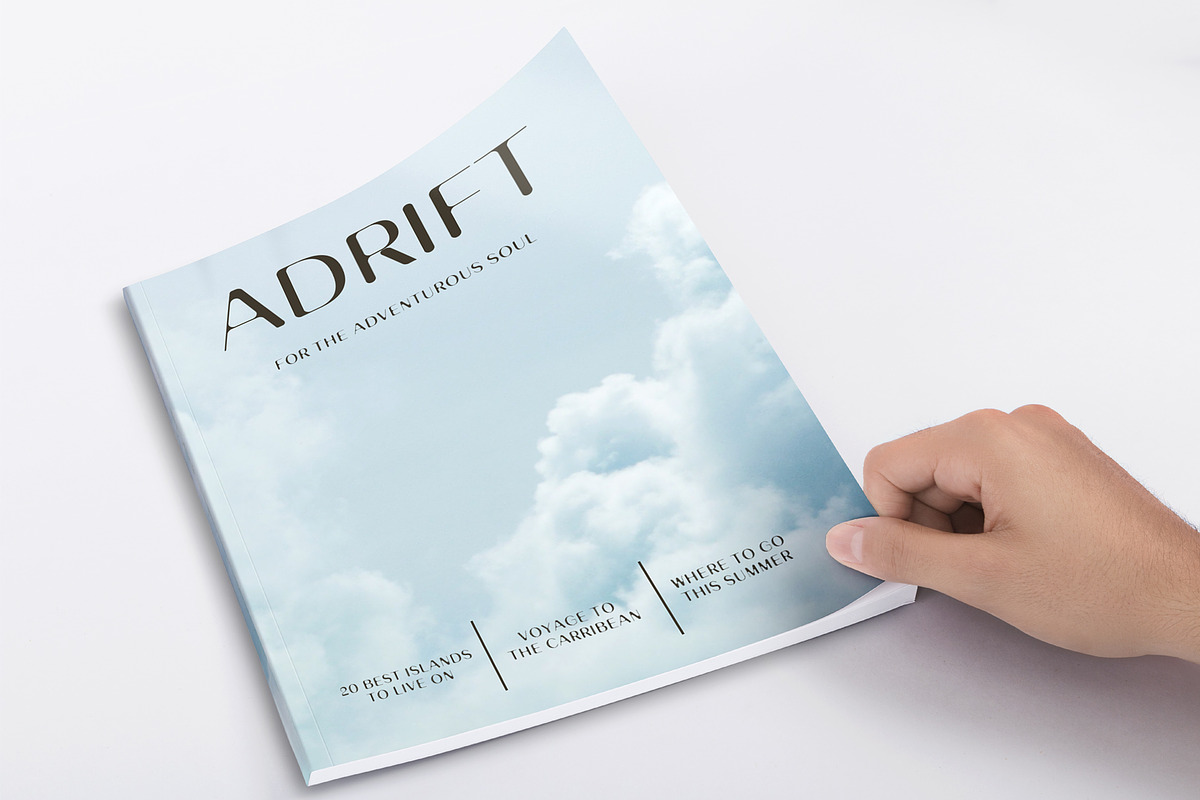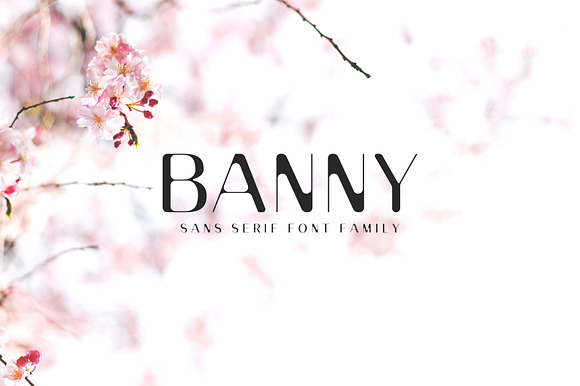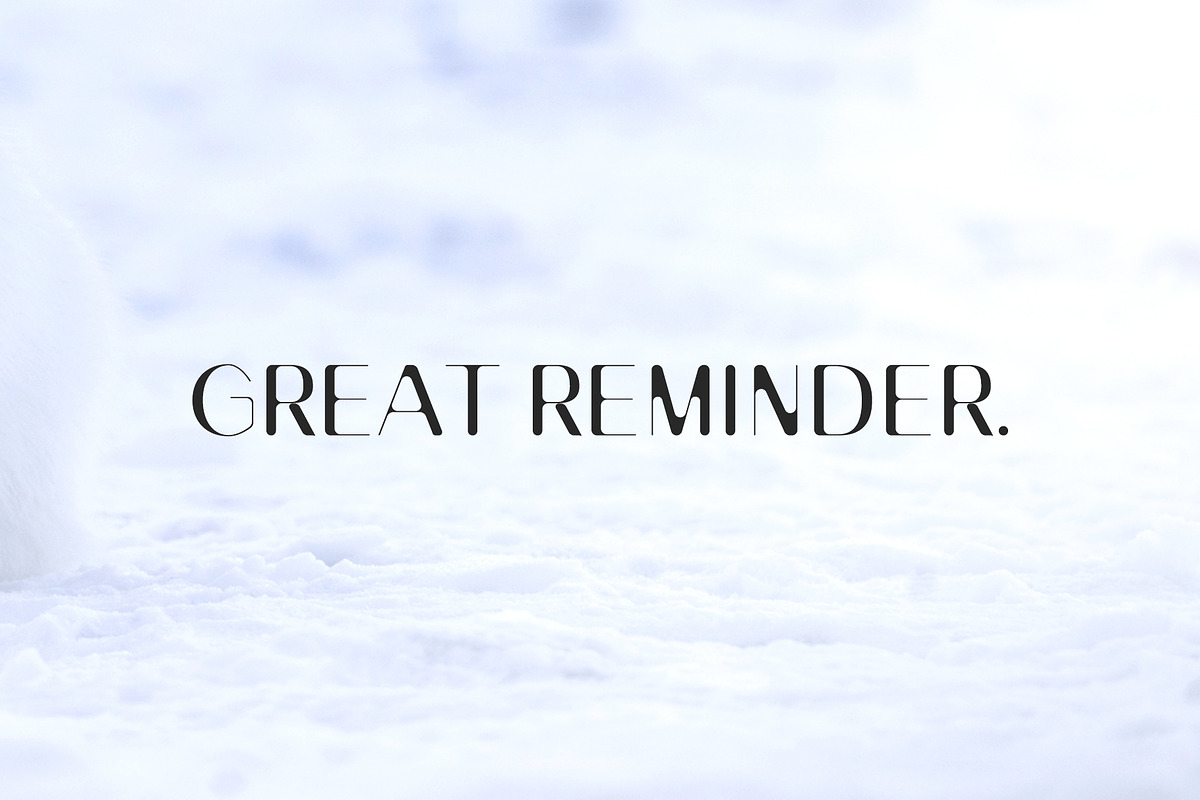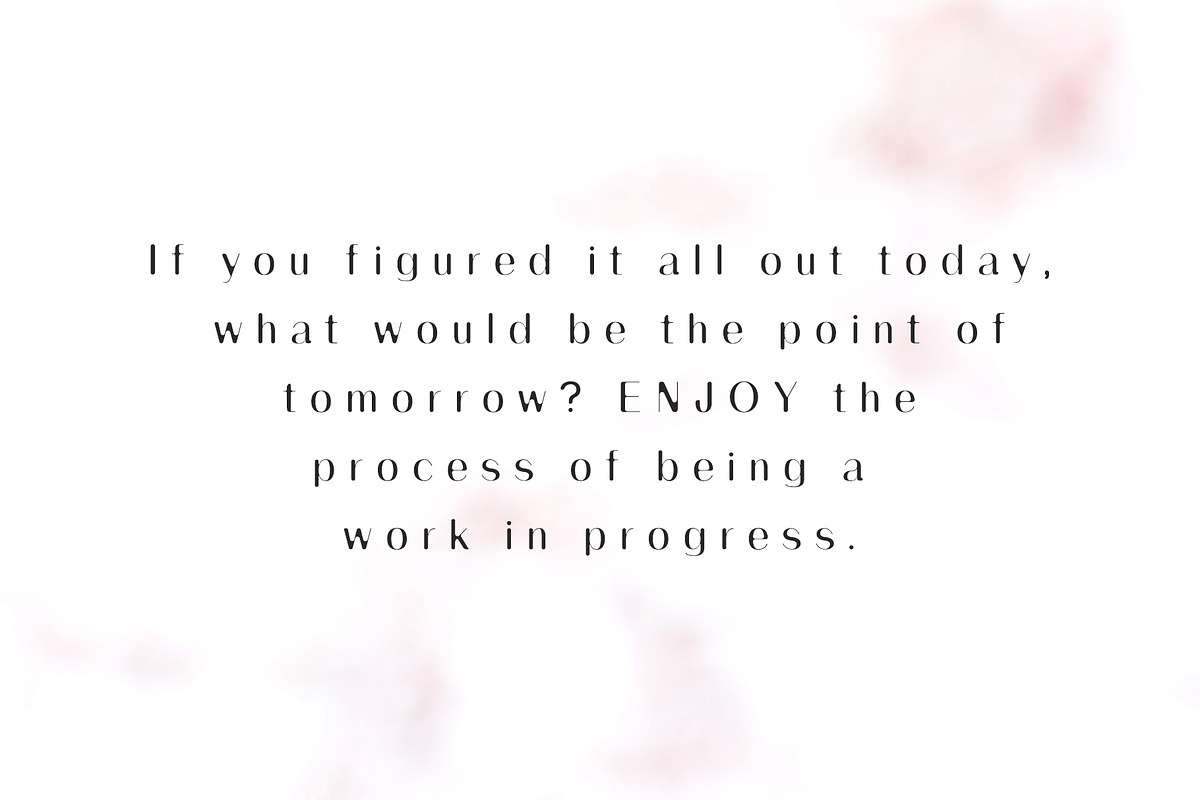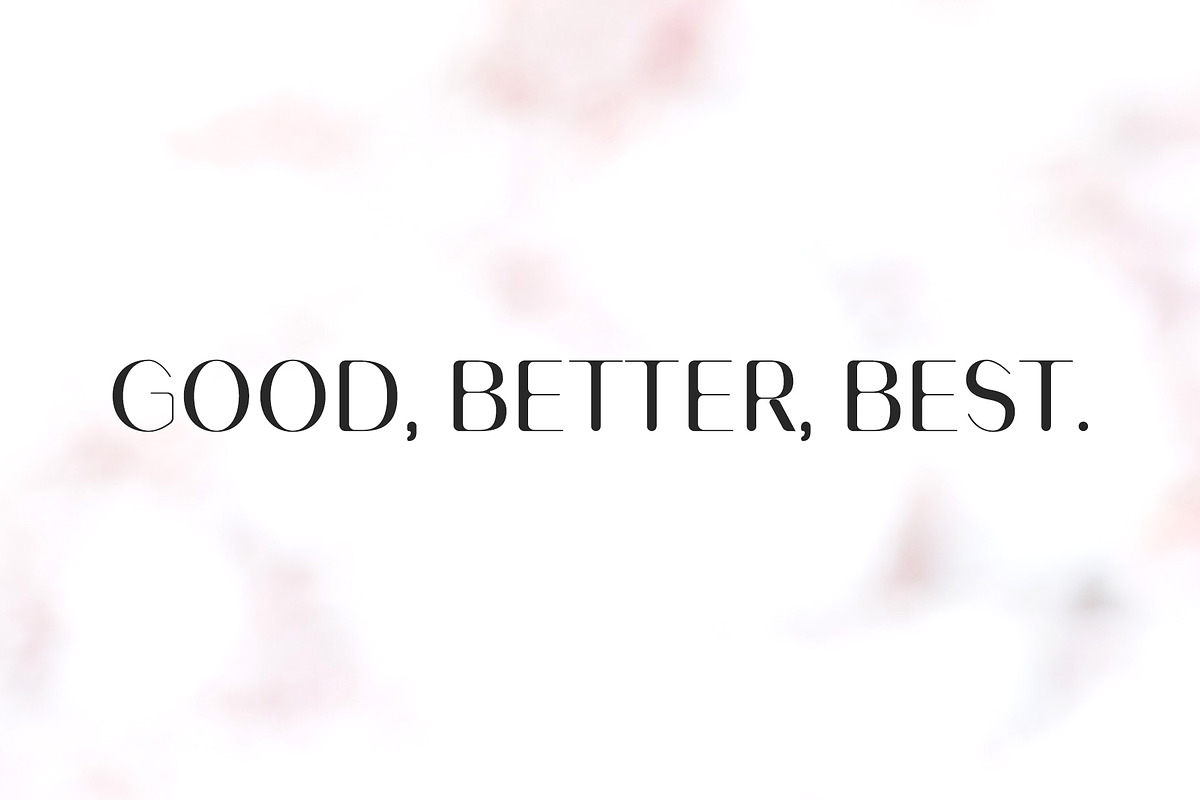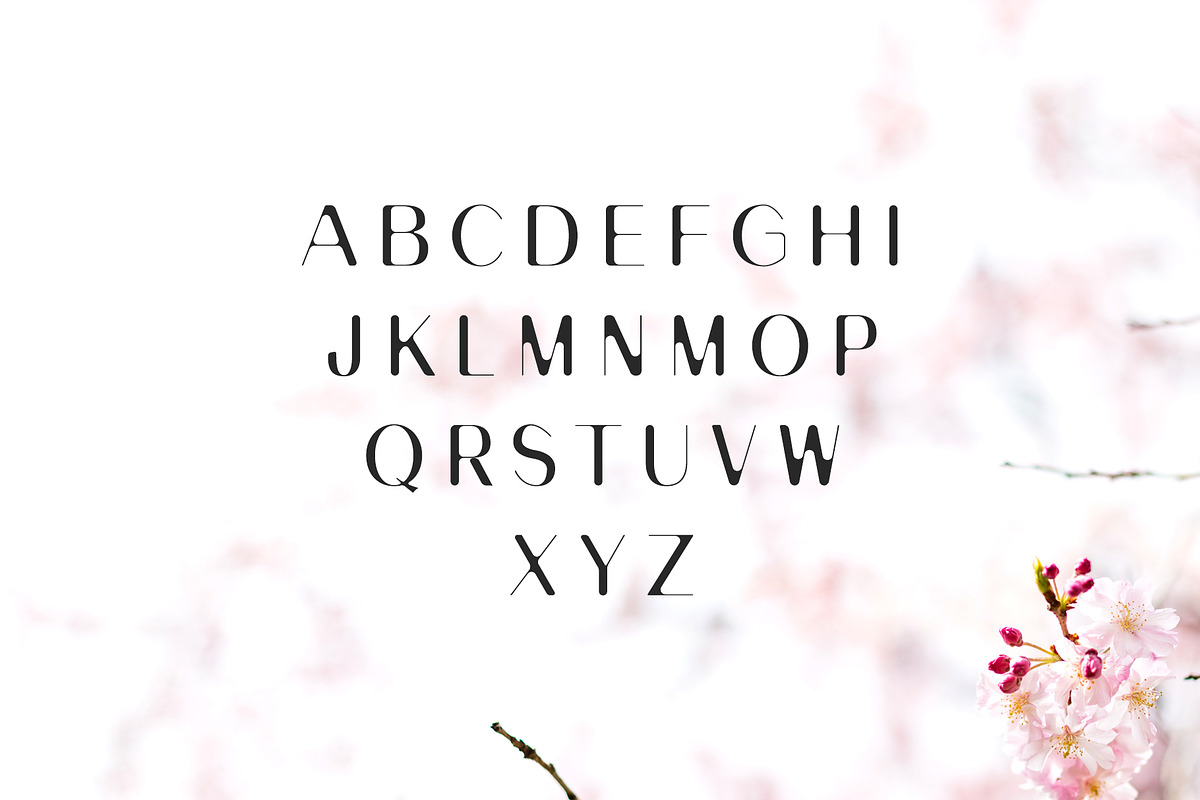
Banny Sans Serif Font Family
Banny Sans Serif Typeface is a clean and beautiful sans serif font, with smooth edges to reproduce vintage printing. Perfect for vintage logo designs, texts, presentations, posters, magazines, notices, headers, titles, name card, magazine, web layouts, invitations, headers, branding and other any business related.
Font Weight: Light, Round, and Bold
Banny Sans Serif Font Family by Creativetacos fits naturally into Branding, posters, packaging, typography.